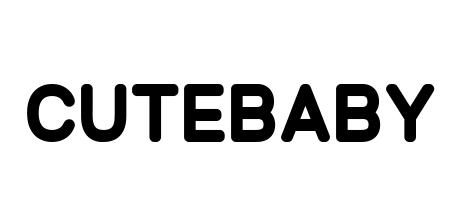
Cutebaby
By Christie Creative
Cutebaby, a font brimming with childlike charm, boasts a playful, rounded aesthetic. Its friendly, slightly chunky letters exude warmth and approachability. Perfect for children''s products, branding, or anything needing a touch of sweet innocence, Cutebaby''s simple design delivers maximum cuteness.